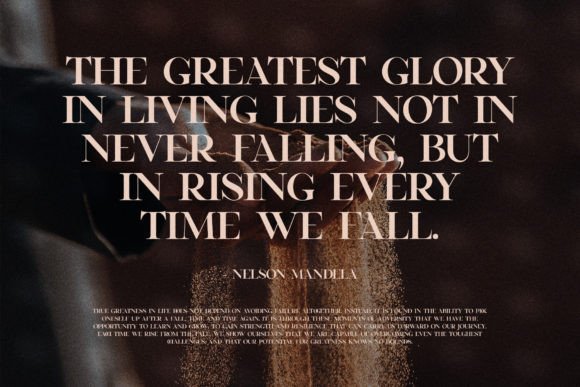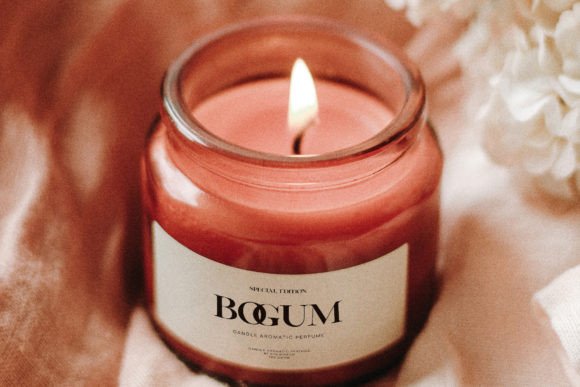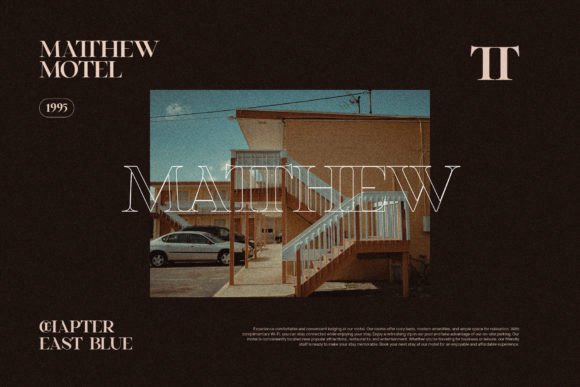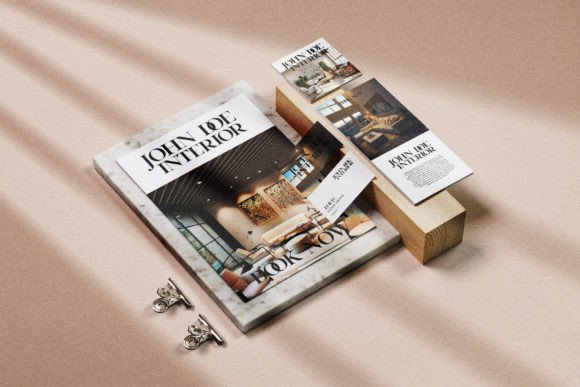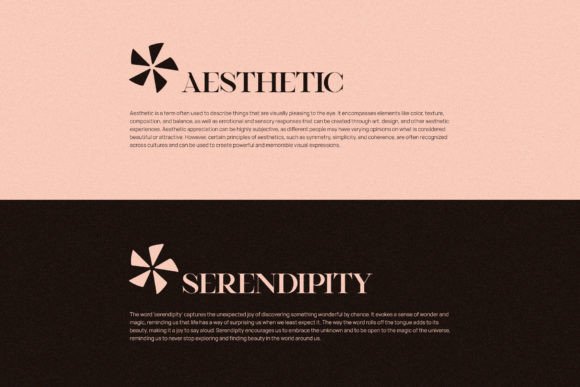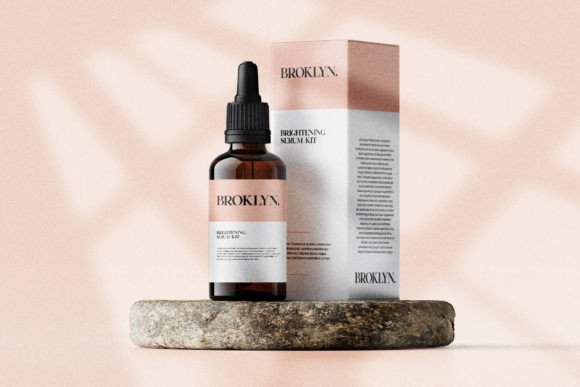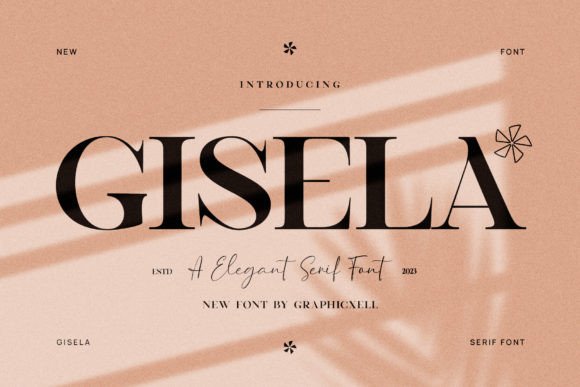
Gisela Font: Elevate Your Designs with Elegance and Boldness
Are you on the hunt for a font that exudes elegance, sophistication, and versatility? Look no further than the stunning Gisela Font. This beautiful serif font is perfect for designers and crafters seeking to add a touch of luxury to their creations. In this article, we’ll dive into the world of Gisela Font, exploring its features, uses, and benefits.
What is Gisela Font?
Gisela Font is a serif font that boasts an elegant and bold style, making it perfect for a wide range of design projects. Its classic and timeless look is reminiscent of traditional typography, while its modern twist ensures it stays fresh and contemporary. Whether you’re working on a wedding invitation, social media post, or stationery art, Gisela Font is sure to impress.
Key Features of Gisela Font
- Elegant and Bold: Gisela Font’s serif design gives it a sophisticated and refined look that’s perfect for high-end designs.
- Versatile: With its wide range of applications, Gisela Font can be used for everything from wedding invitations to social media posts.
- Timeless: Unlike trendy fonts that quickly go out of style, Gisela Font’s classic design ensures it will remain stylish for years to come.
- Easy to Read: The clear and legible design of Gisela Font makes it perfect for body text, headings, and titles.
Uses for Gisela Font
Gisela Font’s versatility is one of its standout features. Here are just a few ideas for using this stunning font:
- Wedding Invitations: Create beautiful, elegant wedding invitations that set the tone for the big day.
- Stationery Art: Add a touch of sophistication to your stationery designs, from business cards to letterheads.
- Social Media Posts: Make your social media posts stand out with Gisela Font’s bold and eye-catching design.
- Packaging Design: Elevate your packaging designs with Gisela Font’s luxurious and high-end feel.
- Branding: Use Gisela Font to create a cohesive brand identity that exudes elegance and sophistication.
Benefits of Using Gisela Font
So why choose Gisela Font for your designs? Here are just a few benefits:
- Instant Elegance: Add a touch of sophistication to your designs with Gisela Font’s elegant and bold style.
- Time-Saving: With its versatility and ease of use, Gisela Font saves you time and effort in finding the perfect font for your project.
- Professional Look: Gisela Font’s high-end design ensures your projects look professional and polished.
Tips for Using Gisela Font
To get the most out of Gisela Font, here are a few tips:
- Experiment with Sizes: Play around with different font sizes to find the perfect balance for your design.
- Pair with Other Fonts: Combine Gisela Font with other fonts to create a unique and eye-catching design.
- Use for Headings and Titles: Take advantage of Gisela Font’s bold style by using it for headings and titles.
- Don’t Overuse: Use Gisela Font judiciously to avoid overwhelming your design.
In conclusion, Gisela Font is a stunning serif font that offers elegance, boldness, and versatility. With its wide range of applications, ease of use, and high-end design, it’s perfect for designers and crafters seeking to elevate their creations. Whether you’re working on a wedding invitation, social media post, or stationery art, Gisela Font is sure to impress. So why wait? Fall in love with Gisela Font and take your designs to the next level!